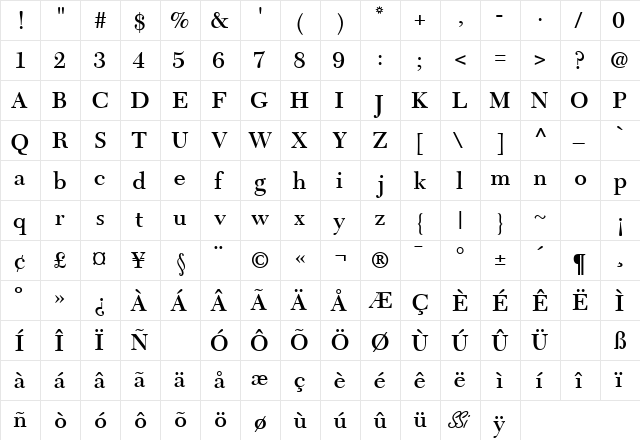
TycoonSSK SemiBold
TycoonSSK is a composed and adaptable typeface that performs quietly and consistently across a wide range of design contexts. Its bold stroke weight gives it real presence on the page.